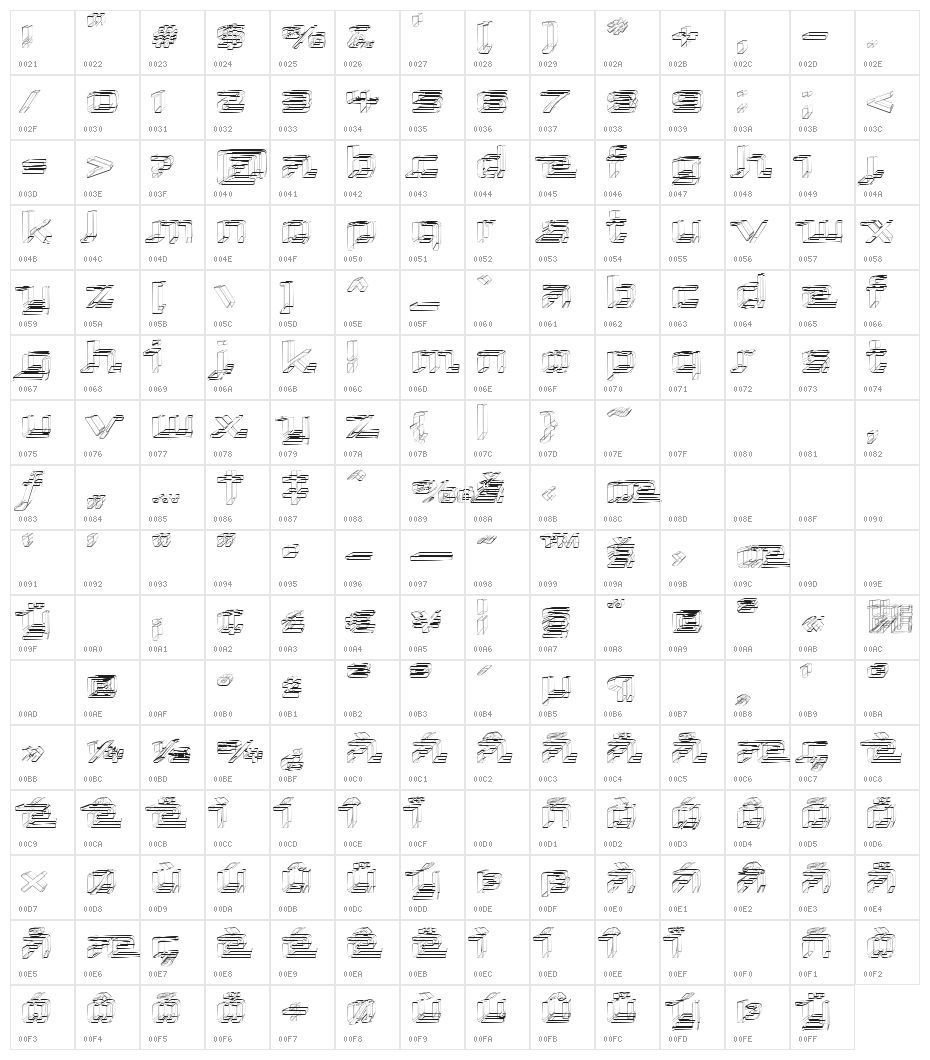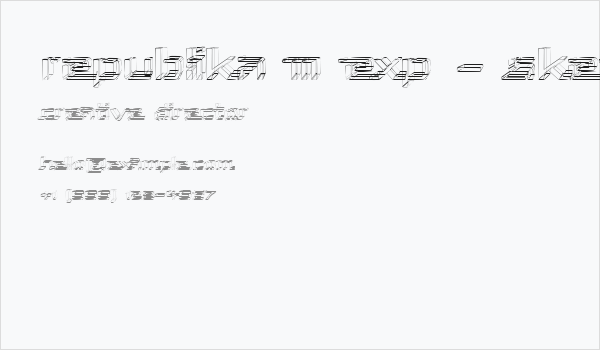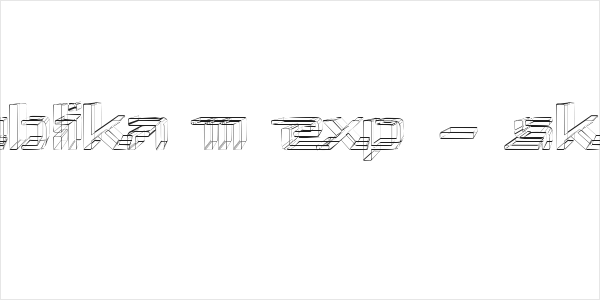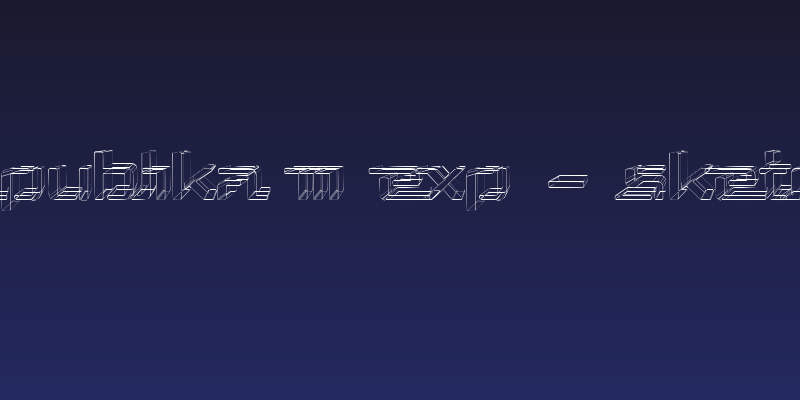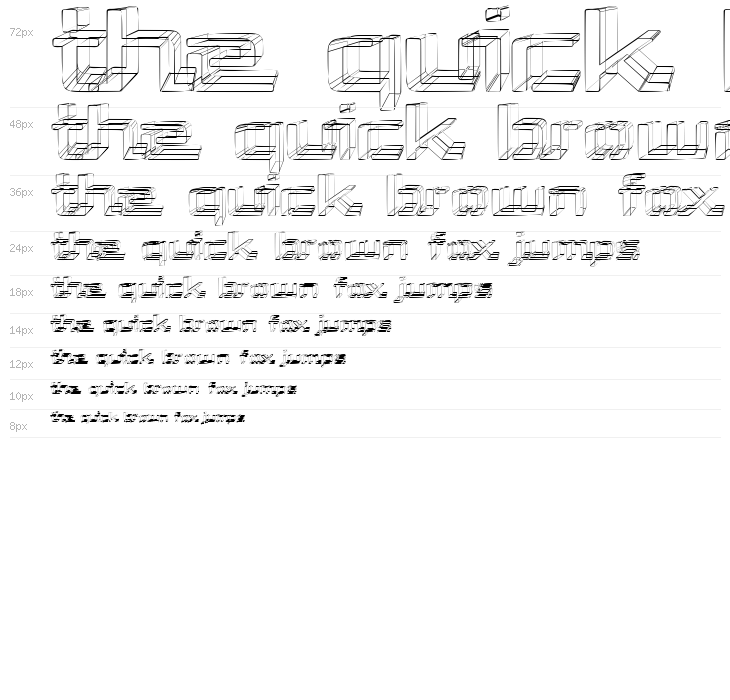
Republika III Exp - Sketch Font
Republika III Exp - Sketch Description
This font features a unique and intricate 3D sketch style, characterized by its geometric and angular letterforms. The design gives an impression of depth and dimension, with each character appearing as if it is constructed from intersecting lines and planes. The font maintains a consistent structure across uppercase, lowercase, numerals, and special characters, creating a cohesive and visually striking appearance. Its complex design suggests a sense of modernity and innovation, making it suitable for projects that require a futuristic or tech-inspired aesthetic. The font's detailed line work and structural complexity make it stand out, offering a distinctive look that can capture attention and convey a sense of creativity and forward-thinking design.
| Proposed Projects | Ideal for tech-themed designs, futuristic branding, digital art projects, and innovative advertising campaigns. |